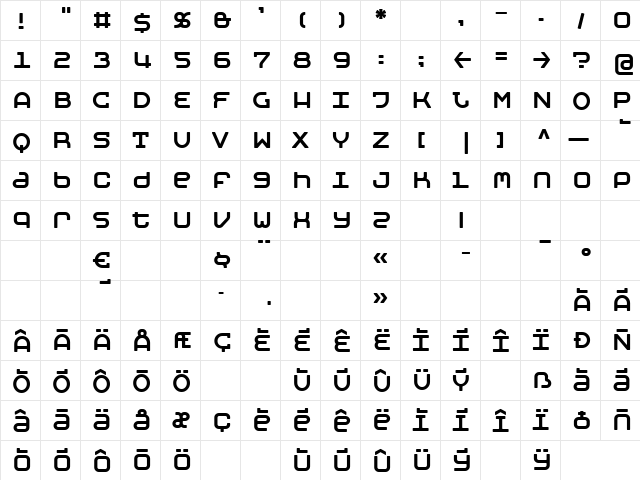
MobyRegular Regular
Design Context for MobyRegular Typeface
MobyRegular offers clean, dependable letterforms without strong stylistic allegiance, making it a practical choice for designers who need flexibility.